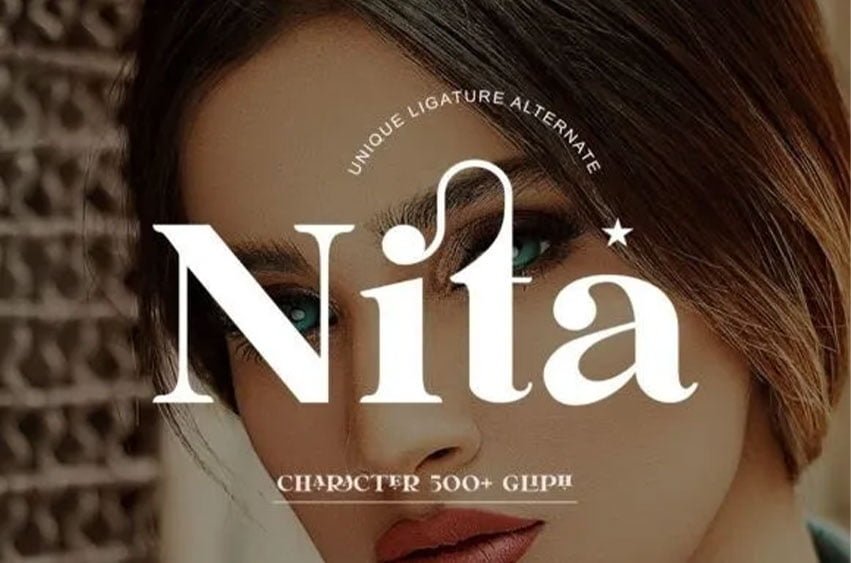
Nita Font is an elegant and classy serif typeface. It is both modern and nostalgic and works great for logos, magazines, social media and so much more. For those of you who are needing a touch of elegant, stylish, classy, chic and modernity for your designs, this font was created for you!